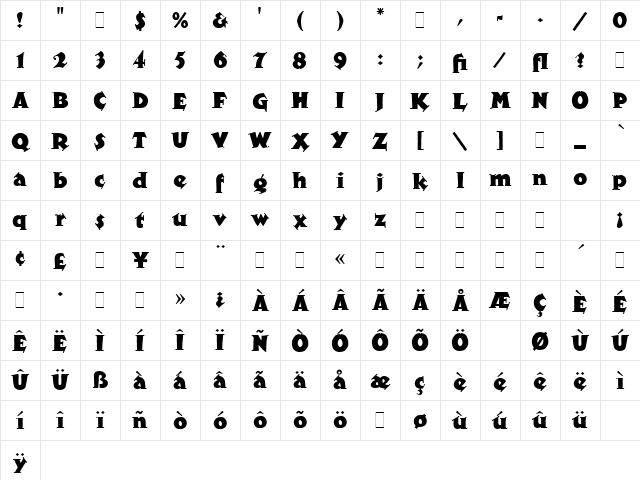
Complete Xylo LET Plain glyph index. Displaying only characters natively supported by Xylo LET Plain font.
Xylo LET is a composed and adaptable typeface that performs quietly and consistently across a wide range of design contexts.